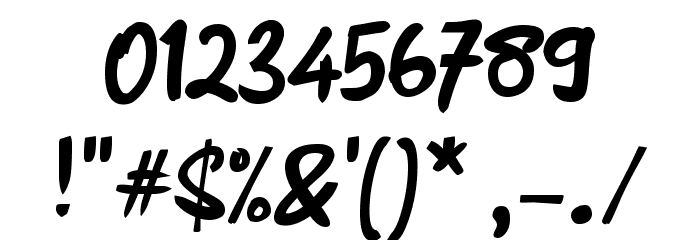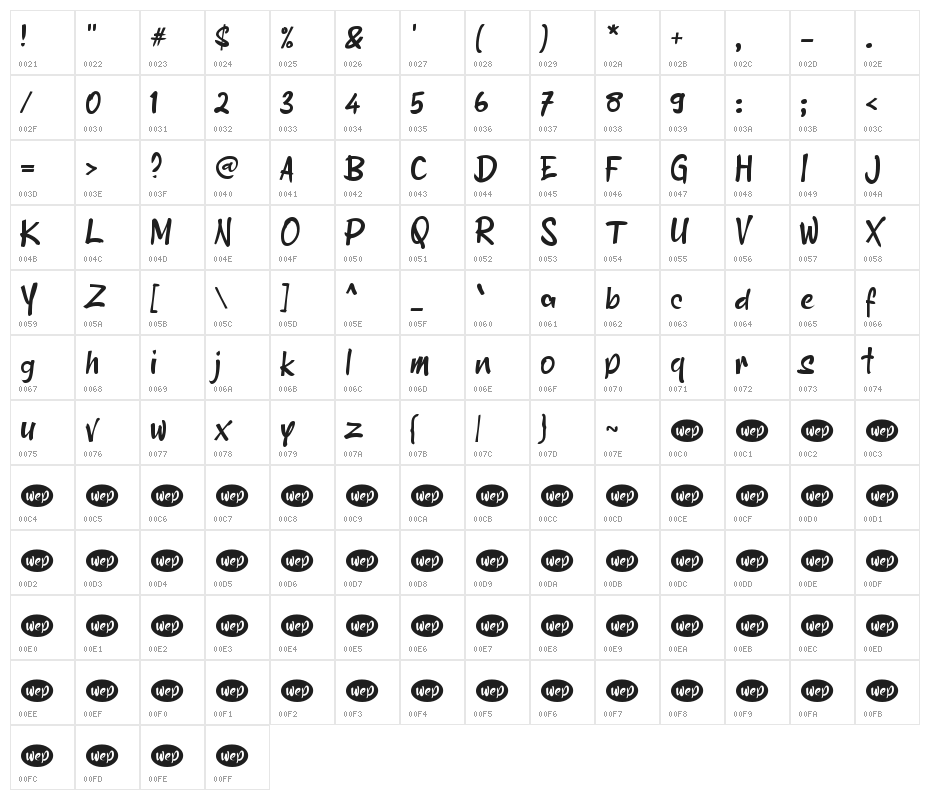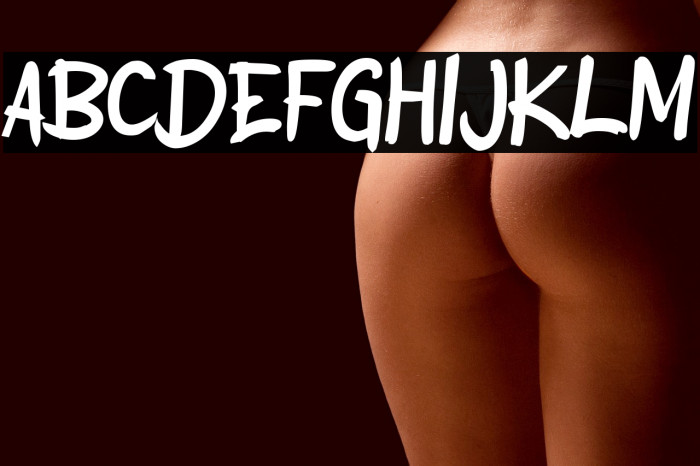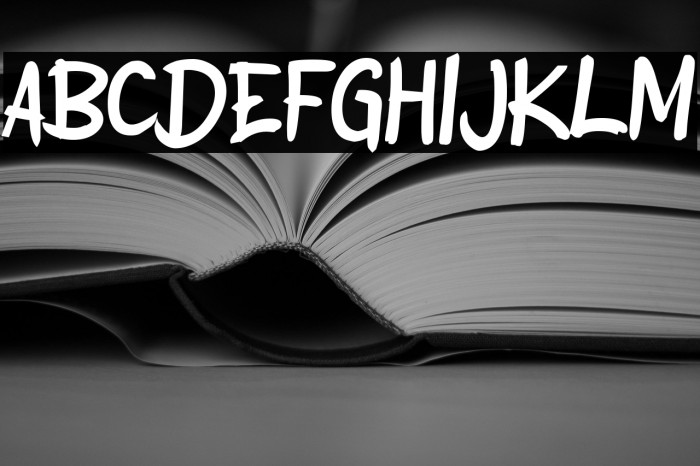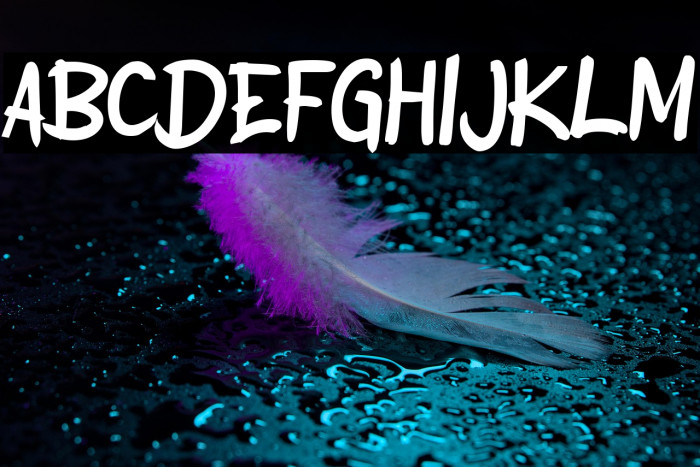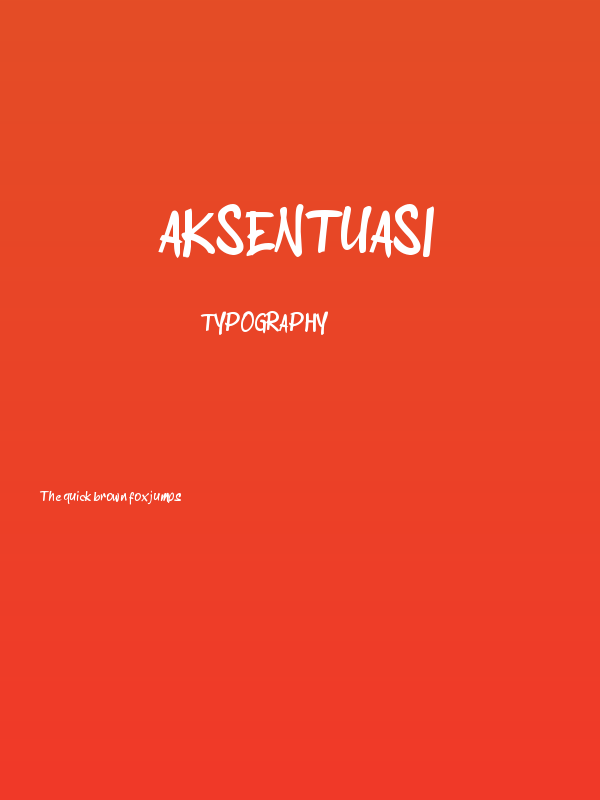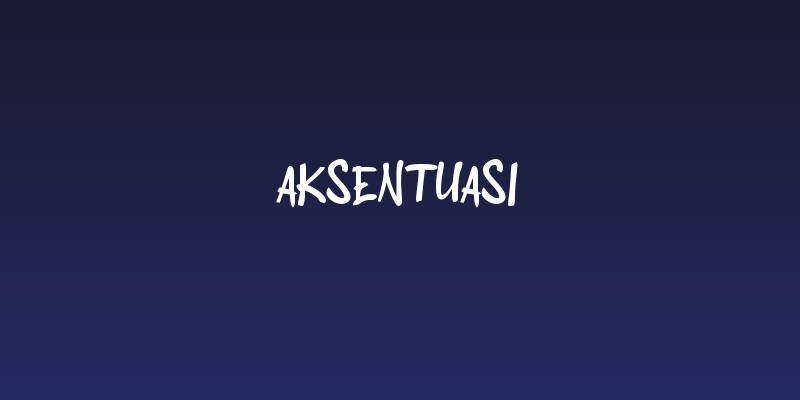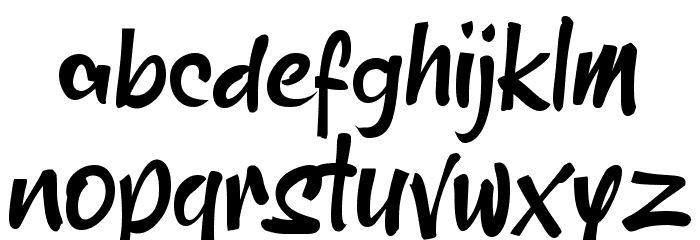
Aksentuasi Font
Aksentuasi Description
This font features a bold, handwritten style with a playful and energetic appearance. The uppercase and lowercase letters are slightly slanted, giving a sense of movement and dynamism. The strokes are thick and consistent, providing a strong visual impact. The characters are well-spaced, ensuring readability while maintaining a casual and informal tone. The numerals and special characters follow the same style, making them cohesive with the alphabet. This font is ideal for projects that require a personal touch or a creative flair.
| Proposed Projects | Ideal for greeting cards, posters, social media graphics, and branding materials that require a personal and creative touch. |